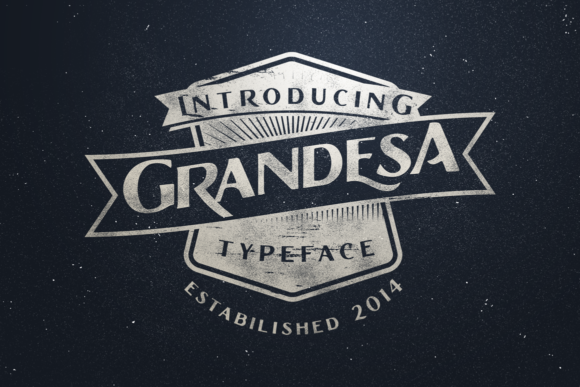
Introducing Grandesa Font, the ultimate display font that embodies elegance and sophistication. Created by the talented Adam Fathony, this handcrafted serif font is a masterpiece designed to captivate audiences and elevate your designs to new heights.
With its timeless aesthetic, Grandesa Font exudes a classic charm that harkens back to the golden age of typography. Its meticulously crafted letterforms are imbued with a touch of nostalgia, evoking a sense of warmth and familiarity. Whether you're crafting logos, branding materials, or eye-catching headlines, Grandesa Font will lend a touch of refined luxury to your creations.
Beyond its classic appeal, Grandesa Font also boasts incredible versatility. Its carefully balanced curves and sharp serifs ensure that it remains legible even at smaller sizes, making it an excellent choice for both print and digital media. Whether you're designing for a website, a social media post, or a printed brochure, Grandesa Font will deliver exceptional results.
But what truly sets Grandesa Font apart is the accompanying vector files. These invaluable assets allow you to effortlessly create stunning hand-lettered projects in a matter of moments. Unleash your creativity and explore endless possibilities, from personalized invitations and greeting cards to eye-catching posters and social media graphics.
Imagine the impact of your designs when you harness the power of Grandesa Font. Your words will leap off the page, captivating your audience with their timeless beauty and unwavering clarity. Elevate your projects to new heights and leave a lasting impression with every stroke of Grandesa Font.